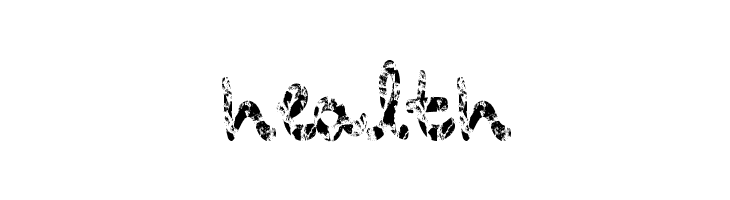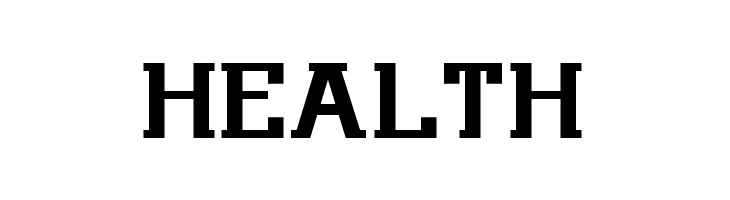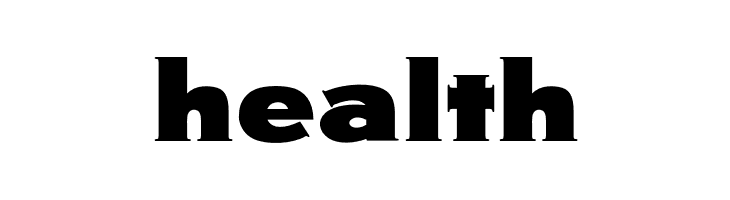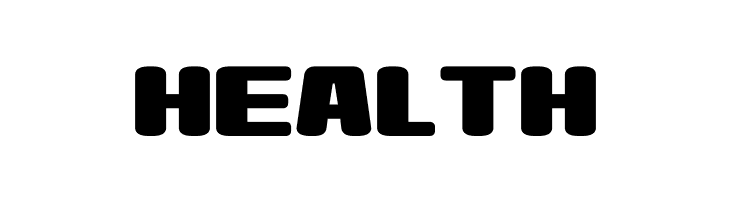
A playful and energetic script font with bold, flowing letters.
A playful, wavy font with bold, irregular outlines and a hand-drawn feel.
A distressed, textured font with a rugged, hand-painted style.
A bold and impactful typeface with strong, uniform strokes.
A bold, playful font with rounded edges and a strong, impactful presence.
Bold, geometric font with a retro-modern style.
A decorative font with uppercase letters framed in intricate tree designs.